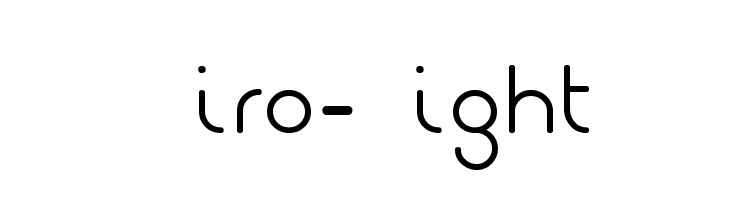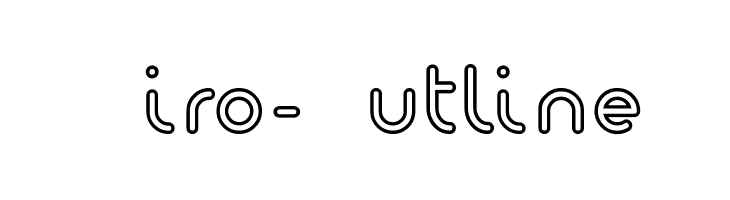
A modern, rounded font with a geometric and minimalistic style.
A modern, outline-style font with rounded edges and geometric shapes.
A modern, geometric outline font with clean and structured letterforms.